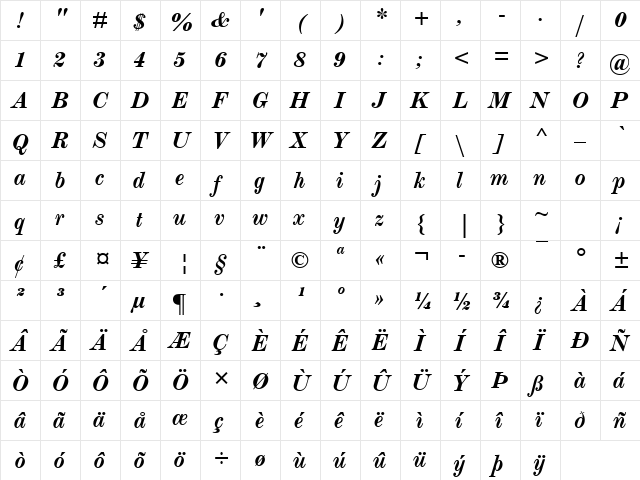
ModernMT Bold Italic
Design Context for ModernMT Bold Typeface
ModernMT Bold is a composed and adaptable typeface that performs quietly and consistently across a wide range of design contexts. The slanted form adds forward momentum and visual energy. The heavy weight commands attention and anchors typographic hierarchies.